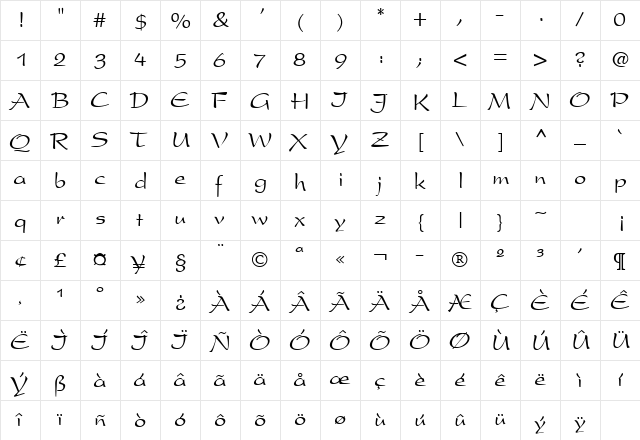
Precidio Normal
Design Context for Precidio Typeface
Precidio takes a measured approach to typography — its balanced proportions and neutral character make it a reliable workhorse for both digital and print work.
Pro Tip: Use Precidio in both headline and body roles to test its range before committing to a single application.